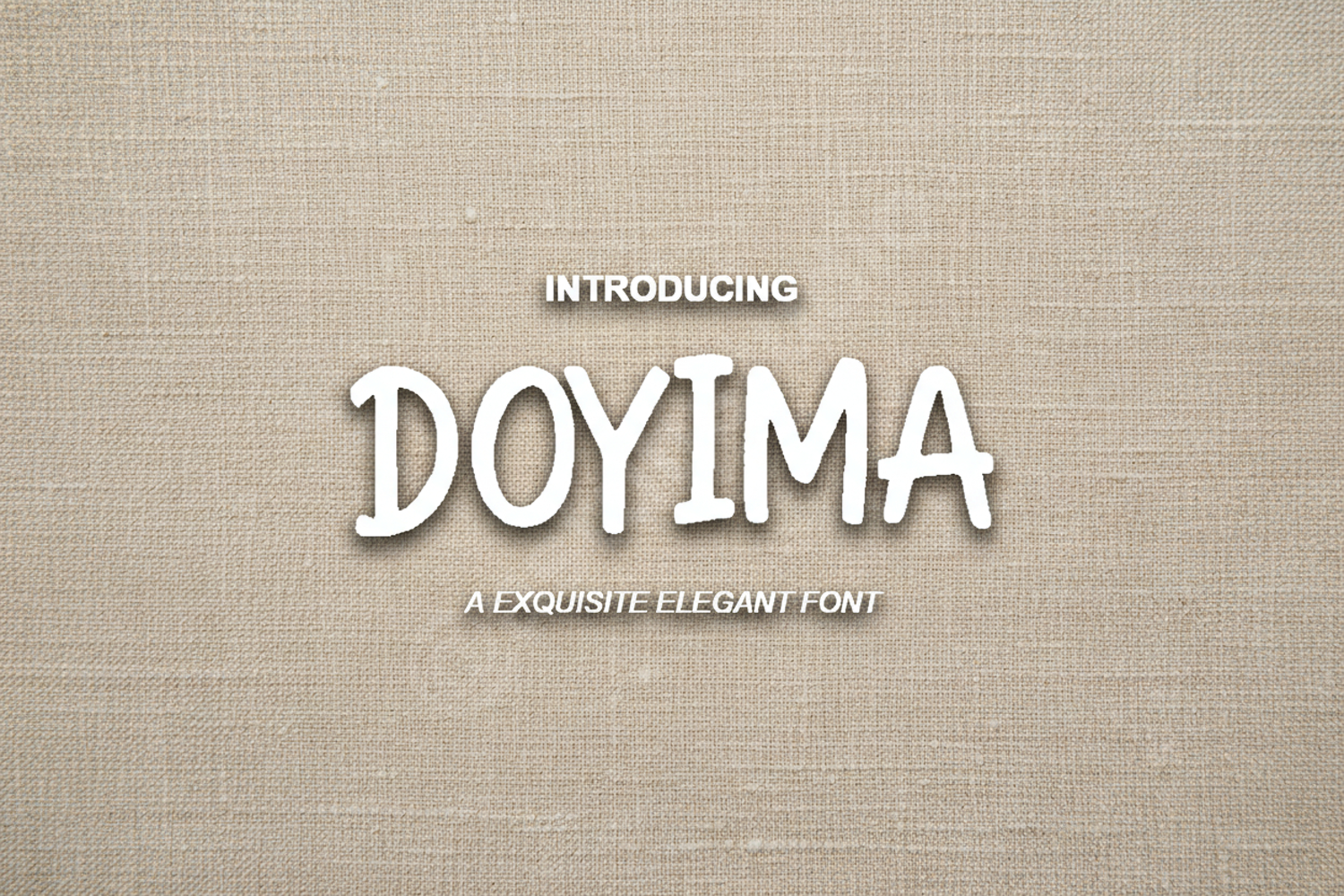
Doyima - Sophisticated Modern Serif Typeface
Doyima
Elevate your creative projects with Doyima, a sophisticated modern serif typeface that exudes luxury and refinement. Crafted with precision, Doyima offers a perfect balance of timeless elegance and contemporary style, making it an essential addition to any designer's toolkit. Whether you are working on a high-end brand or a minimalist layout, this font provides the premium quality your work deserves.
- Premium Branding and Identity Design
- Elegant Wedding Invitations and Stationery
- High-End Editorial Layouts and Magazines
- Minimalist Logo Design and Wordmarks
- Social Media Graphics and Aesthetic Quotes
- Luxury Packaging and Product Labels